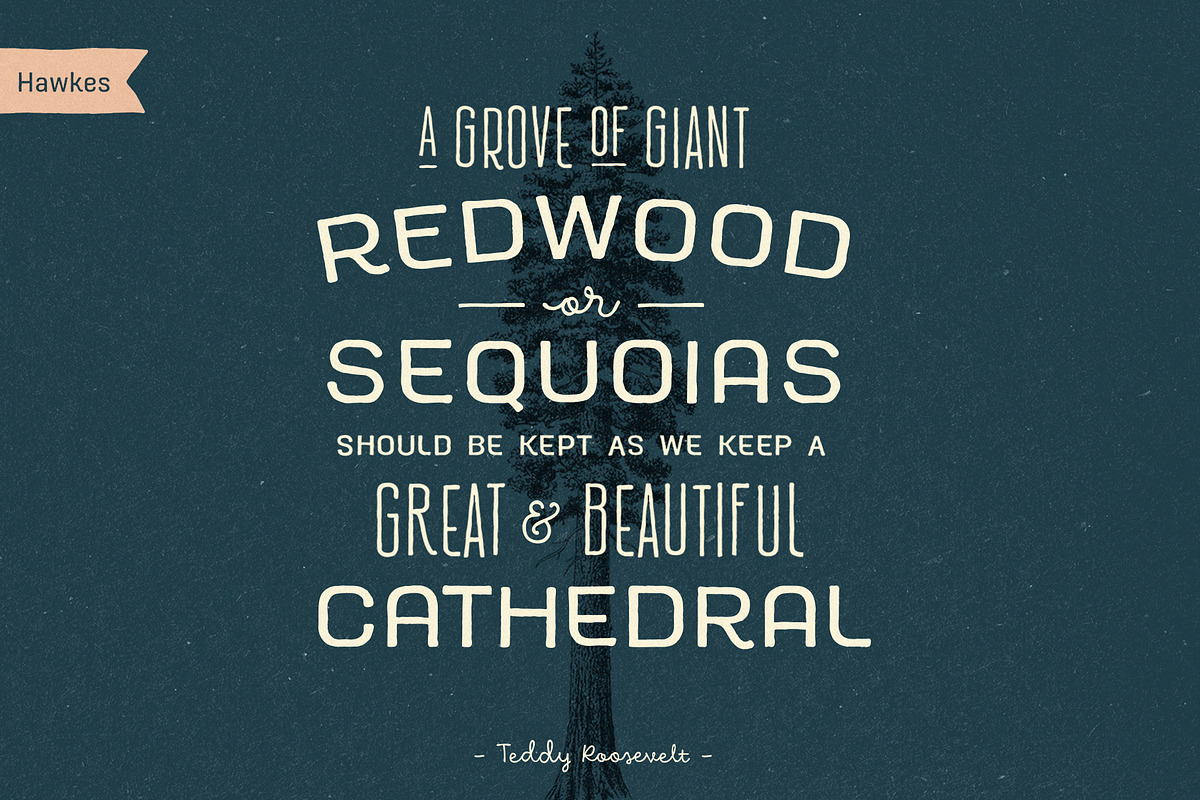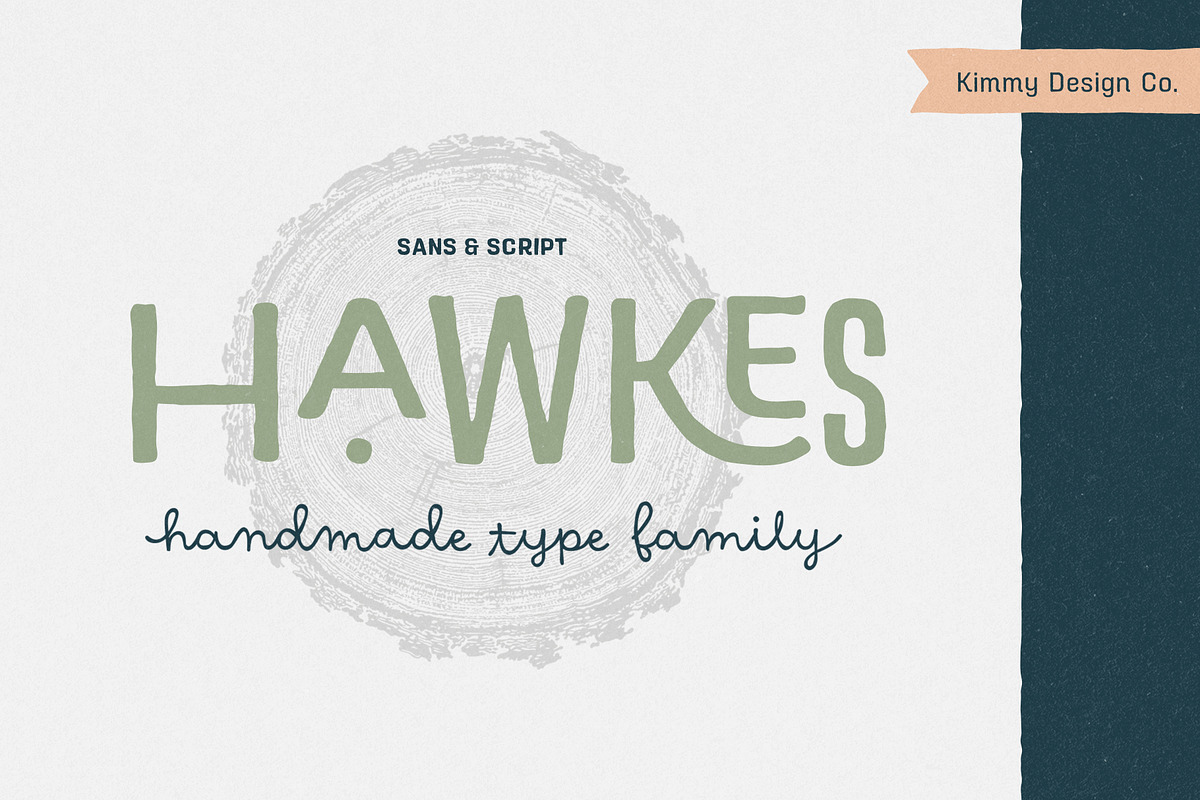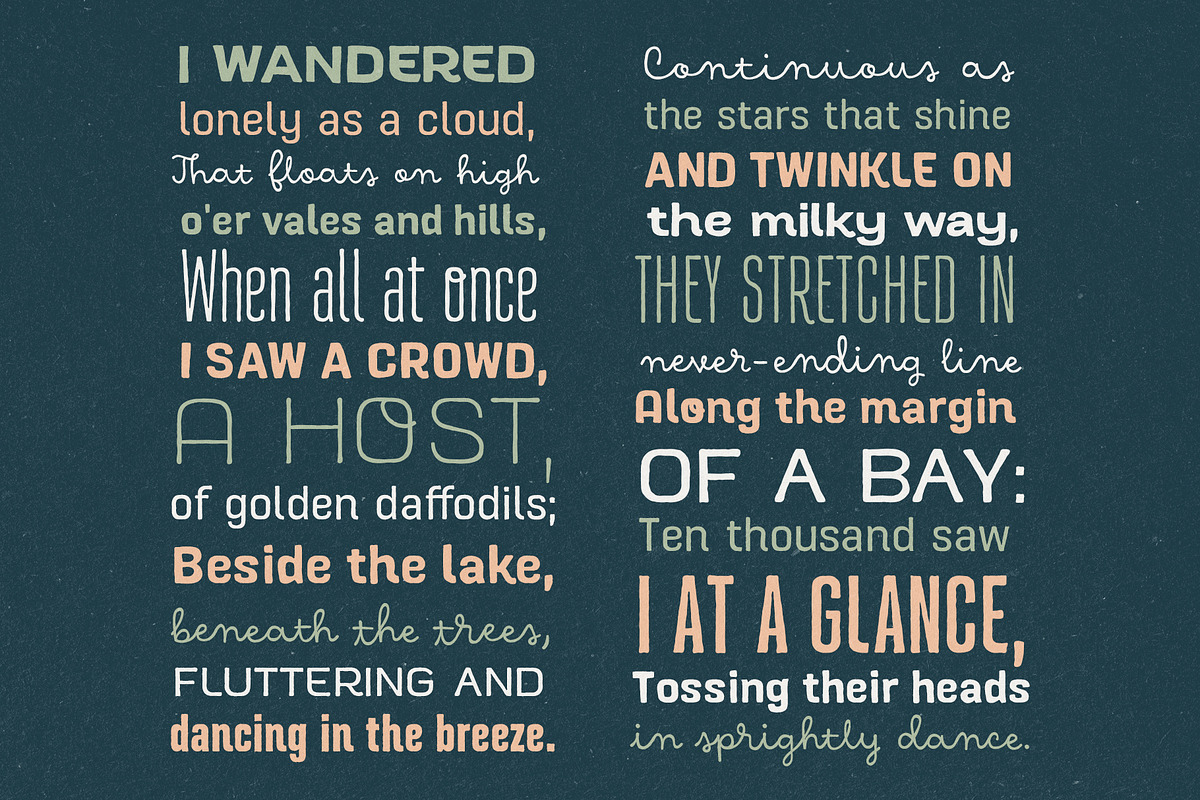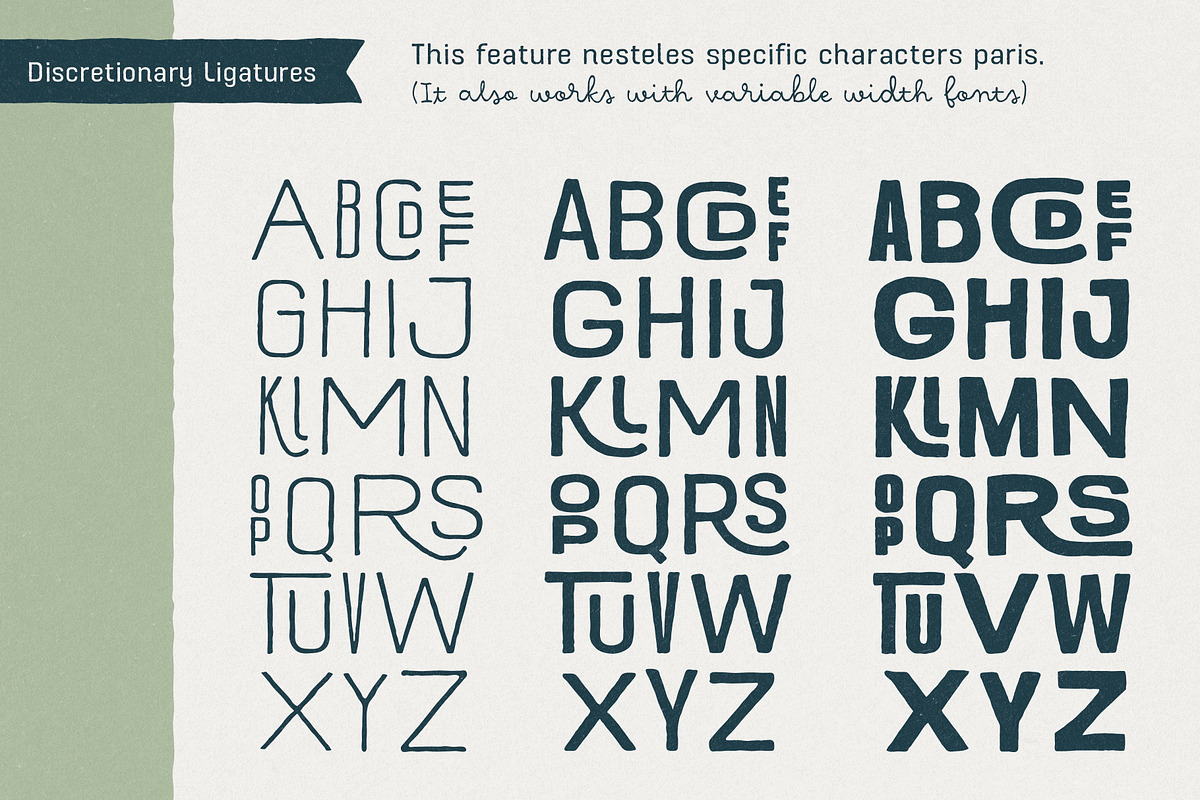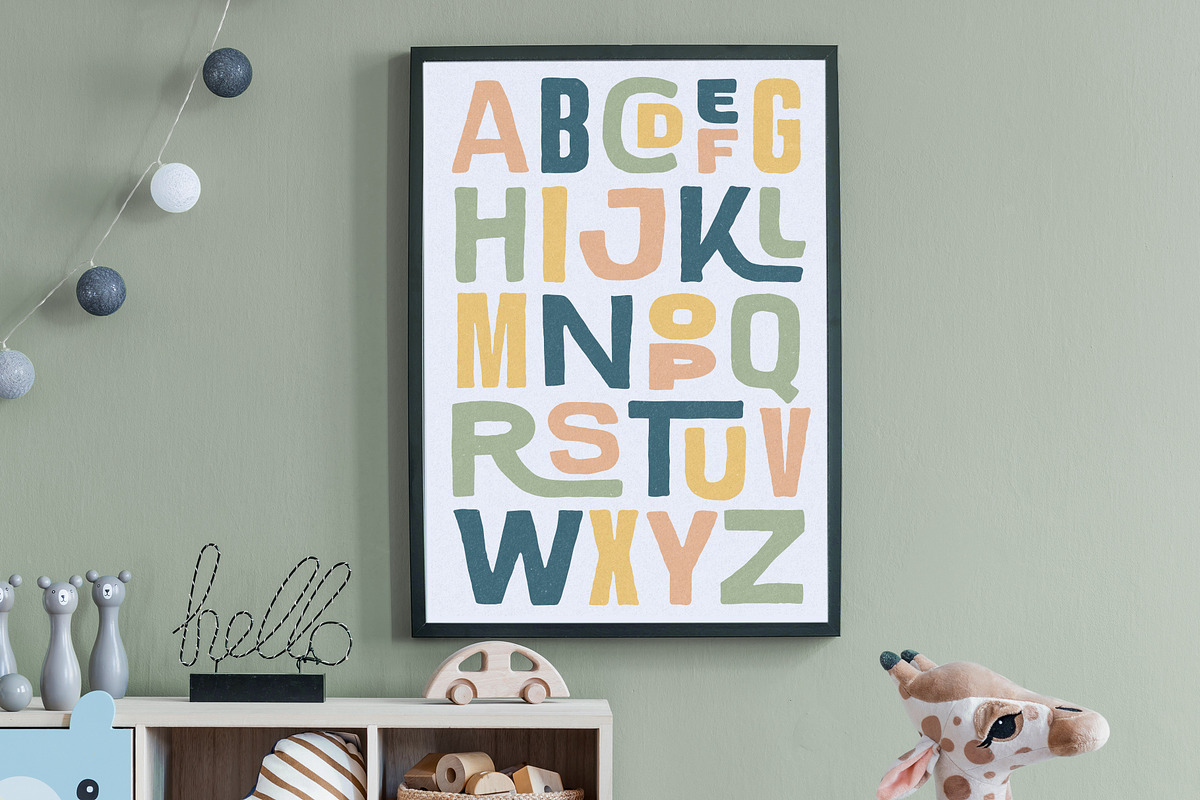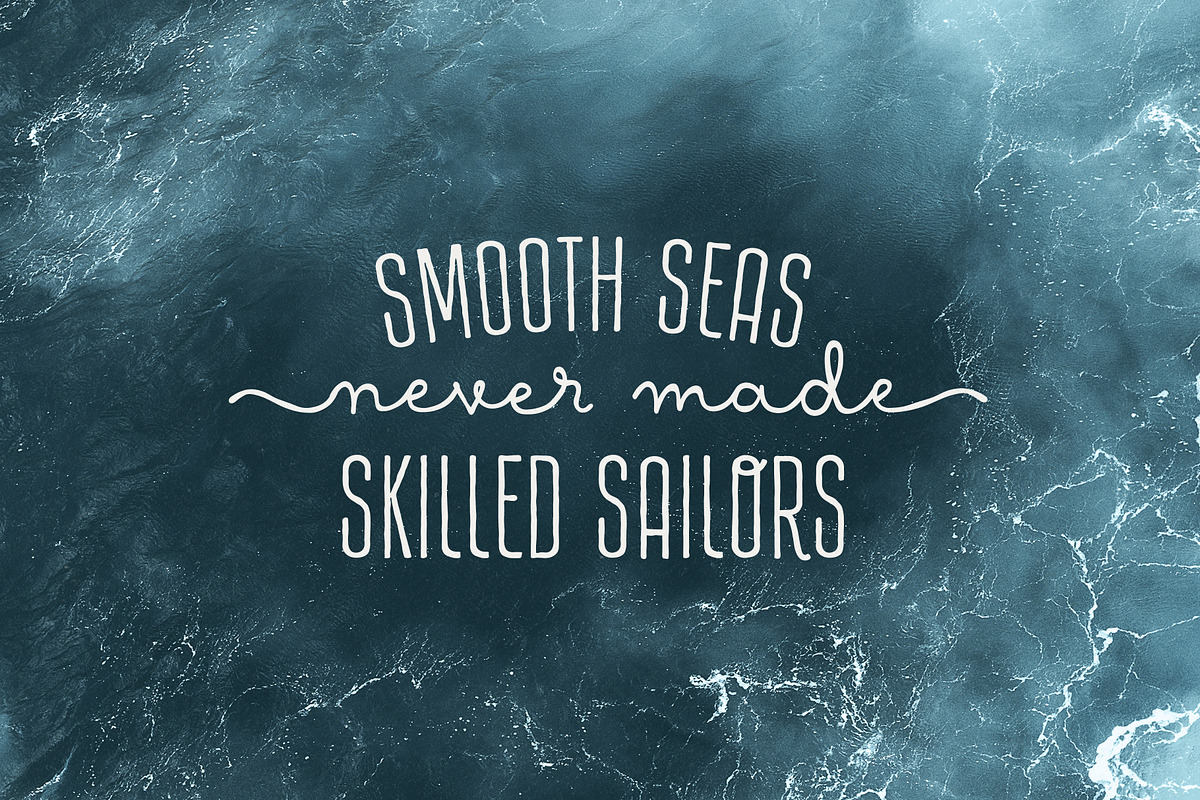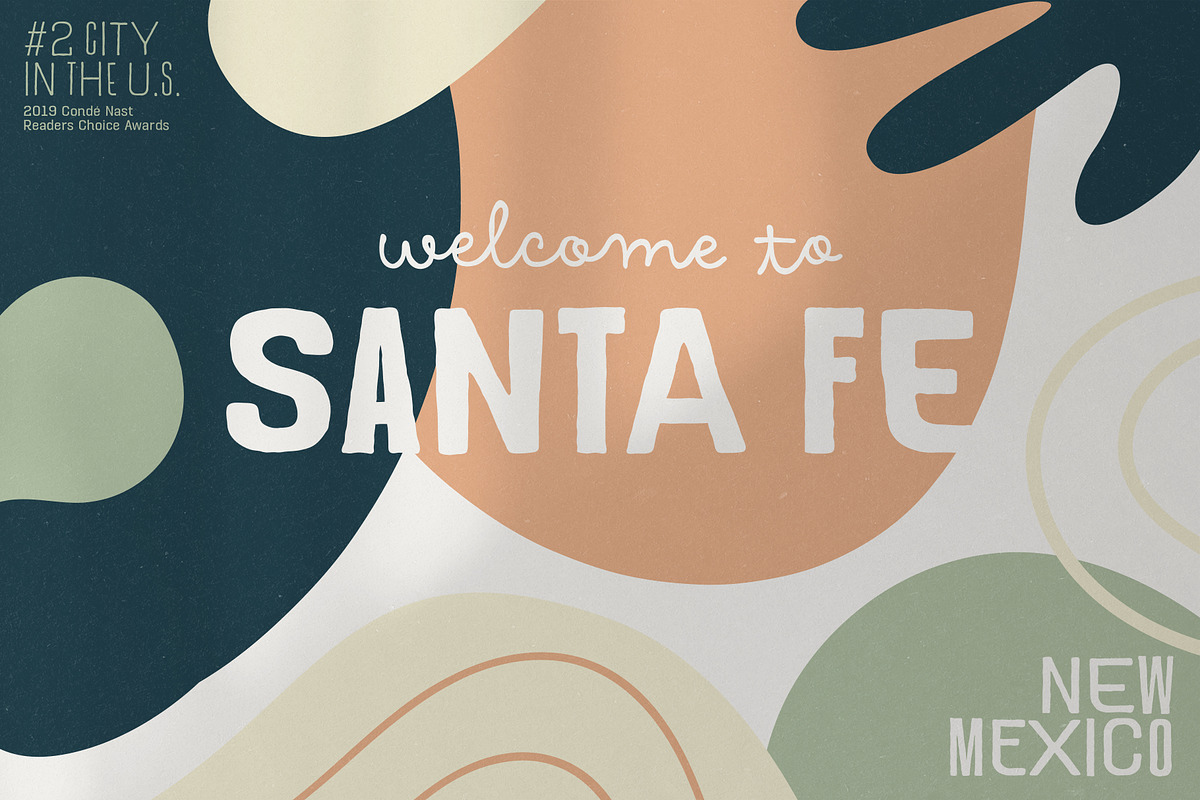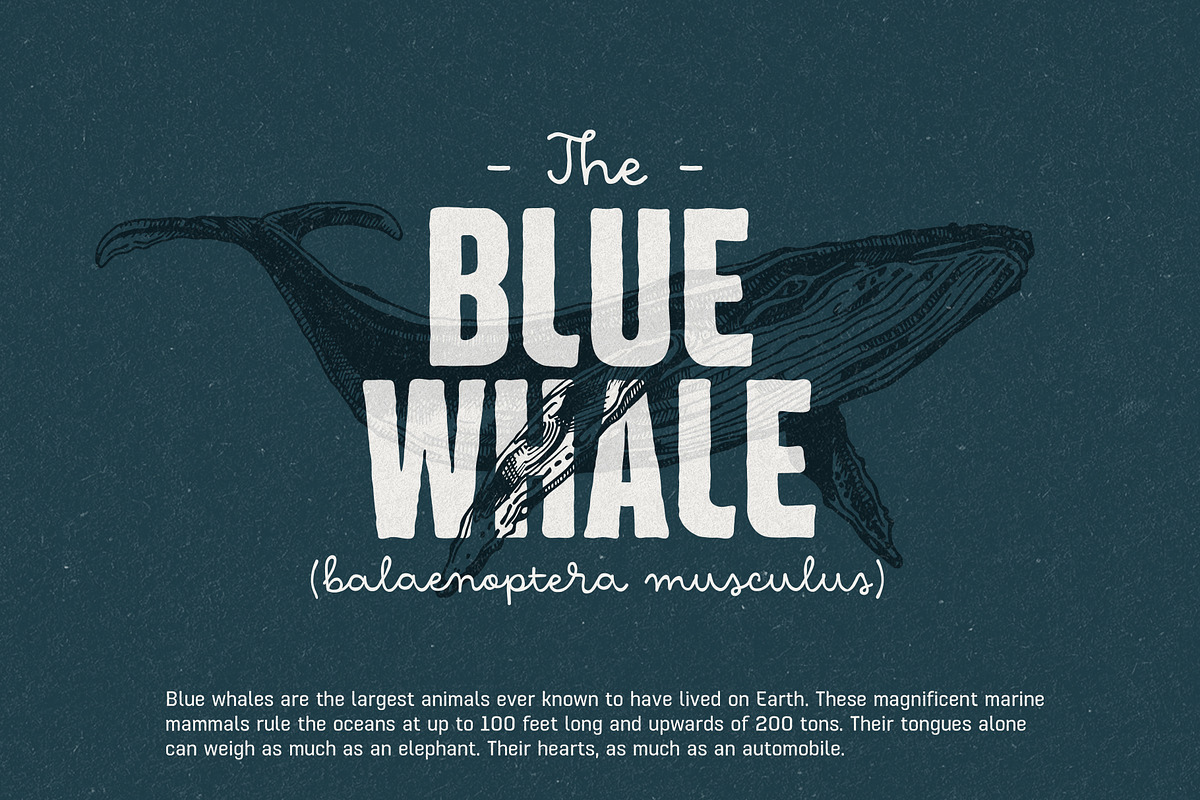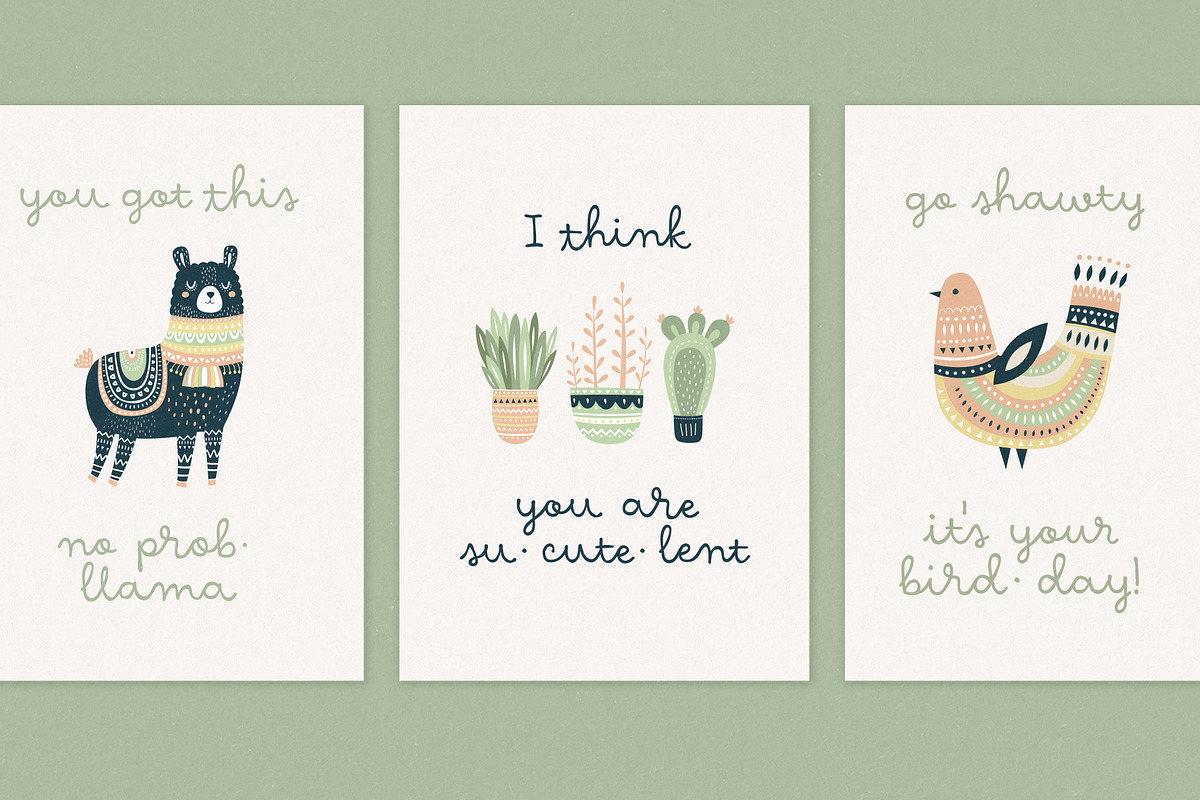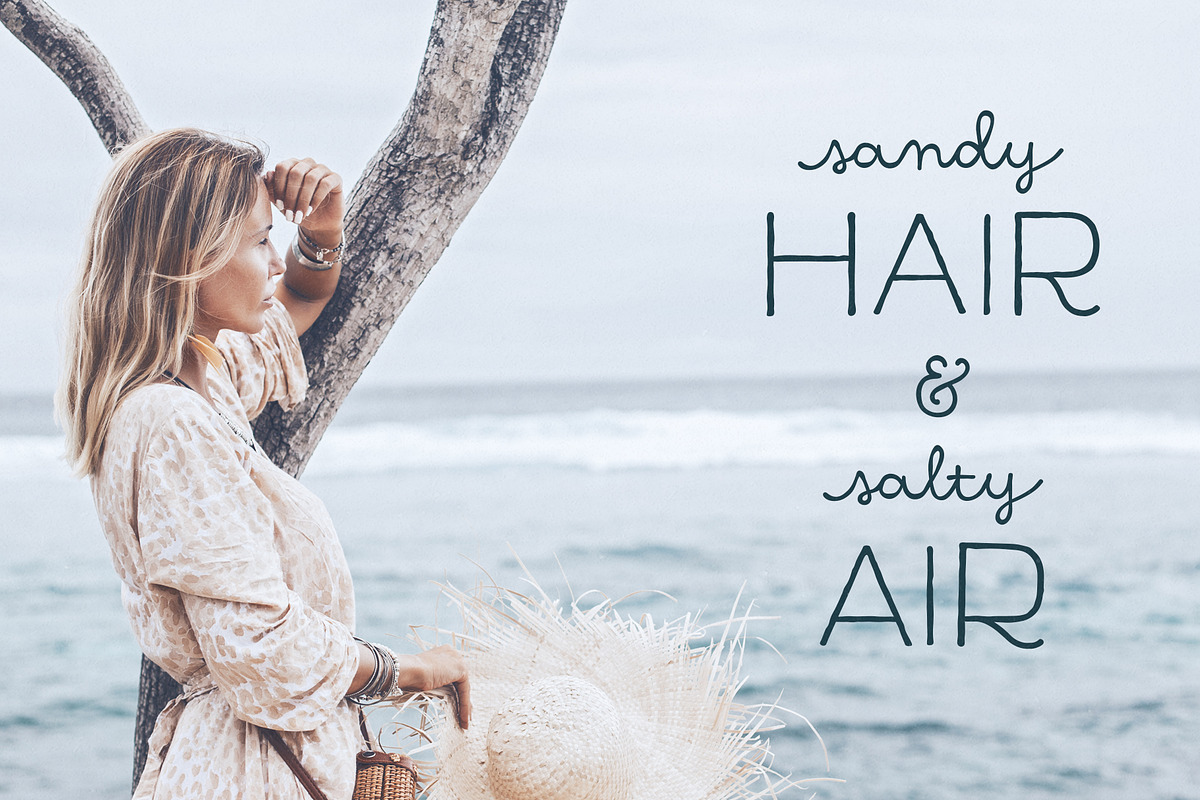
Hawkes Handmade Collection
This is Hawkes. Hawkes is an extensive handmade typeface family that comes with a bundle of weights, widths and styles, all designed to work cohesively. Here is a breakdown of the Hawkes family.
Hawkes Sans The primary subfamily is a sans-serif typeface that includes six fonts: three weights (light, medium and bold) and three widths (narrow, regular and wide). Within this set are an array of stylistic features; including small capitals, character style alternatives, discretionary ligatures and contextual alternatives. See details below for more information on OpenType Features.
Hawkes Variable Width Sans The secondary subfamily is the same base sans-serif fonts but combined in variating widths. Essentially, it takes all three widths of each weight and randomly mixes them together. This creates a funky and creative alternative to the more traditional sans-serif set. The variations are for the uppercase, lowercase, small capitals, ligatures and numbers.
Hawkes Script The last subfamily is the script typeface. It’s a quirky script with variations of its own, including ligatures, swashes and contextual alternatives (again, see below for further details.) The script font works great as a complimentary style to the sans-serif, or on it’s own.
Alright, let’s get into all the extra goodies this typeface has to offer.
Small Capitals Small caps are short capital letters designed to blend with lowercase text. These aren’t just capital letters just scaled down but designed to fit with the weight of both the lowercase and capitals. With Hawkes, small caps can either sit on the baseline (in line with the base of the capital and lowercase) or to be lifted to match the height of the capital letters by applying the discretionary ligature setting in the OpenType panel. These small capitals have a dot underlining them that sit along the baseline. The feature offers a unique display affect that is great for logos, titles and other headline needs.
Discretionary Ligatures A discretionary ligature is more decorative and unique combination than a standard ligature and can be applied at the users discretion (as the name indicates.) The specific styling for these ligatures varies for different fonts. With Hawkes, they are used as an all capital styling feature, or to lift the small capitals to align with the height of the capitals. In the former setting, both lowercase and uppercase letters are first changed to all capitals, then a specialized set of letter combinations are transitioned so small characters are positioned within a main capital letter. These combinations only happen with main characters that include an applicable stem, such as C F K L R T Y. Some of these combinations include two or three characters. When Small Caps is turned ‘on’, this feature will lift the small caps to the height of the capital letter. For more information, please check out the user guide!
Stylistic Alternatives Stylistic alternates are a secondary form of a character, often used to enhance the look or style of a font. For Hawkes, these alternatives provide a slightly more handmade feel.
- A - the capital and small capital A will lose its pointed apex and become rounded. Think of it more as an upside-down U than an up-side-down V ;-)
- Oo, G, Ss, Cc- these characters’ topmost terminal becomes a loop. The O is applied automatically, the G S and C need to be turn on individually.
Titling Alternatives This feature does sort of the opposite of what it intends. Instead of being used for titling purposes, this feature makes the text look better in paragraph text settings.
- Kk Rr h n m - curved terminals on the are straightened
- e - the counter stroke also gets straightened from a more looping motion
- y - the shape of y is changed from a rounded character to a sharper apex (think more like a ‘v’ than ‘u’)
Contextual Alternatives Contextual alternates are glyphs designed to work within context of other adjacent glyphs. With Hawkes Sans, there are three slightly different variations per character. The feature rotates the application of each variation. This helps with organic authenticity, so if you have two e’s next to each other, they won’t look identical (reflecting the natural variations in handwriting and lettering.)
With Hawkes Variable width fonts, I have created a contextual pattern that randomizes the widths of each character. So, when the feature is turned ‘on’ in the OpenType panel, the widths would alternate in a pattern such as: Narrow, Wide, Regular, Narrow, Regular Wide, Narrow, etc. It happens automatically so the user doesn’t have to think or worry about getting a random seed.
With Hawkes Script, contextual alternates allow strokes to connect properly from one character to the next while maintaining a believable, natural flow. Connecting strokes are present for two letters next to each other but are replaced by a shorter stroke when located at the end of a word or sentence. Some characters have in-strokes when located at the start of a word. When a character is preceded by a capital letter that doesn’t connect, it too needs an in-stroke or altered spacing.
This feature is complicated and messy, but luckily you don’t really have to think about it! I’ve done all the coding so all you have to do is turn ‘on’ the feature in the OpenType panel and you are off to the races! I’m just letting you know what’s happening behind the scenes.
Swashes These are just for Hawkes Script and provide tail swashes to the start and ends of letters. There are three different options. You can pick the basic option by turning ‘on’ the swash feature in the OpenType panel, or you can pick using the Glyph panel.
Altogether this extensive family boasts 14 total fonts in a wide array of styles, weights and widths, making it a great addition to any handmade type collection. Enjoy!